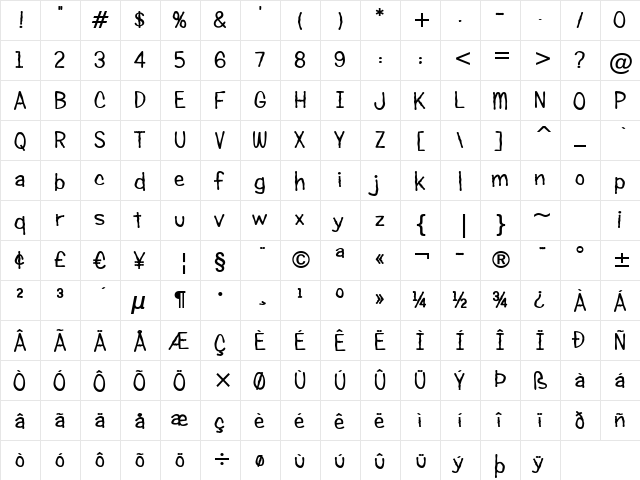
Candy Buzz BTN Bold
Design Context for Candy Buzz BTN Typeface
Candy Buzz BTN is a composed and adaptable typeface that performs quietly and consistently across a wide range of design contexts. Its bold stroke weight gives it real presence on the page.